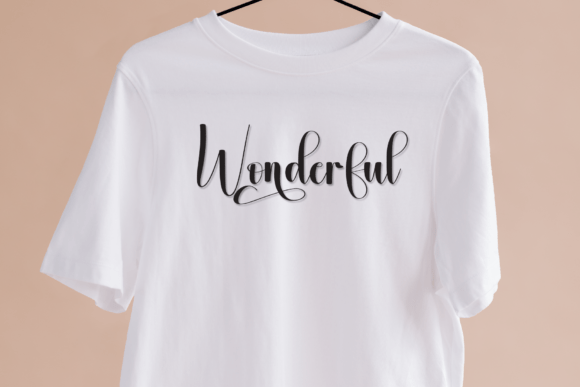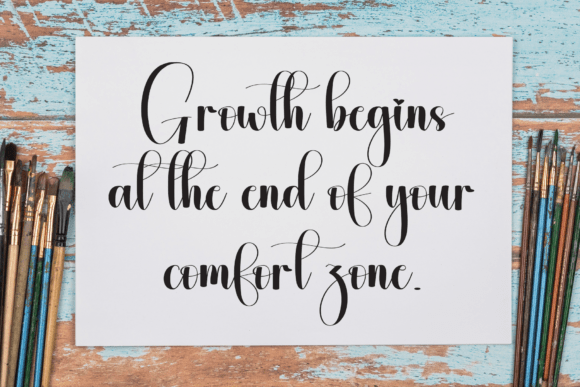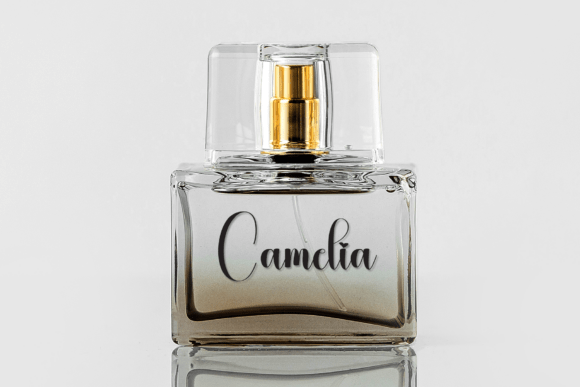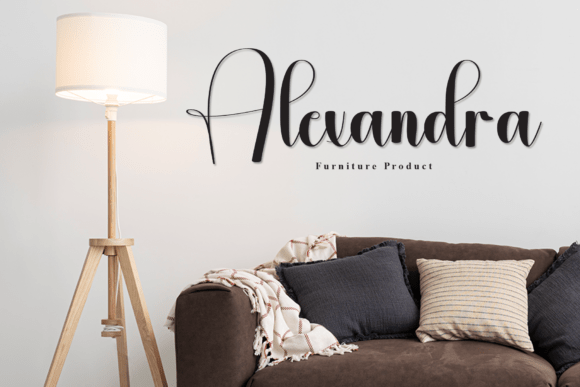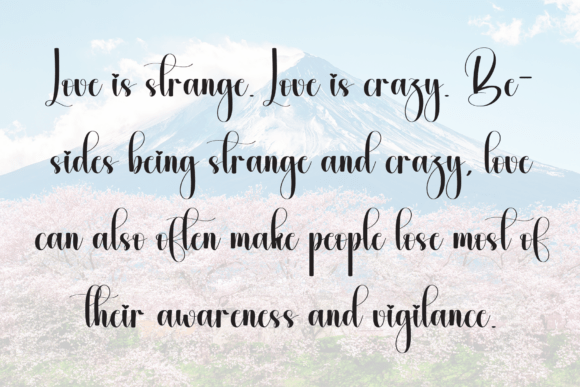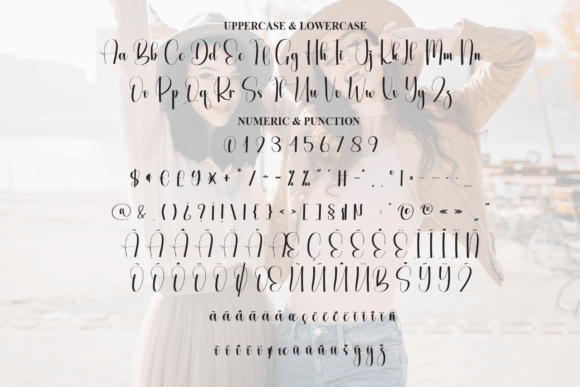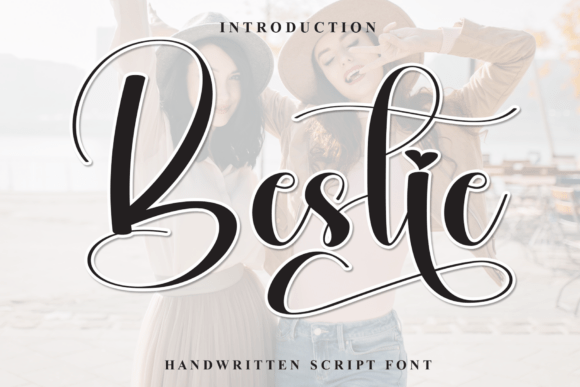
The Bestie Font: A Charming Handwritten Display Font for Your Design Needs
Have you ever been in the middle of a design project, and suddenly, you’re stuck on finding the perfect font? I recall working on a wedding invitation project, and my client specifically asked for a font that would convey a sense of innocence and fun. After scouring through numerous font libraries, I stumbled upon the Bestie Font, and it instantly clicked. In this article, I’ll share my experience with this delightful font, its features, and how to make the most of it in your designs.
A Personal Encounter with Bestie Font
As I began working with Bestie Font, I was immediately drawn to its charming and approachable handwritten style. It’s the kind of font that radiates warmth and friendliness, making it perfect for designs that require a personal touch. Whether you’re creating wedding invitations, birthday cards, or any other project that needs a dash of whimsy, Bestie Font is an excellent choice.
- ✨ Friendly and approachable handwritten style
- ✅ Perfect for designs that require a personal touch
- 🎉 Delightful and whimsical, adding a touch of joy to any design
- 📝 Versatile and suitable for various design projects, from wedding invites to cards and more
- 🤔 Limited use in formal or corporate designs, as it may come across as too playful
- ⚠️ Some characters may not work well in smaller font sizes, so it’s best to use it at larger sizes
- Explore the font’s features, such as ligatures and stylistic sets, to create unique and engaging text.
The Designer Inspiration Behind Bestie Font
The story behind Bestie Font is one of creativity and passion. Imagine a designer who wanted to create a font that would bring joy and whimsy to people’s lives. With a background in handwriting and lettering, they carefully crafted Bestie Font to be a friendly and approachable display font. Through their journey, they experimented with various styles and techniques, ultimately creating a font that is both playful and refined.
Q: What type of designs is Bestie Font best suited for?
A: Bestie Font is perfect for designs that require a personal touch, such as wedding invitations, birthday cards, and other projects that need a dash of whimsy.